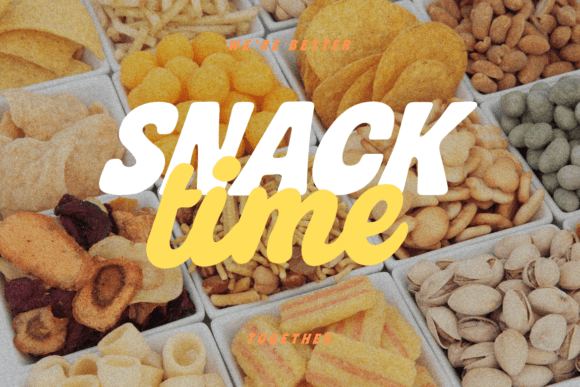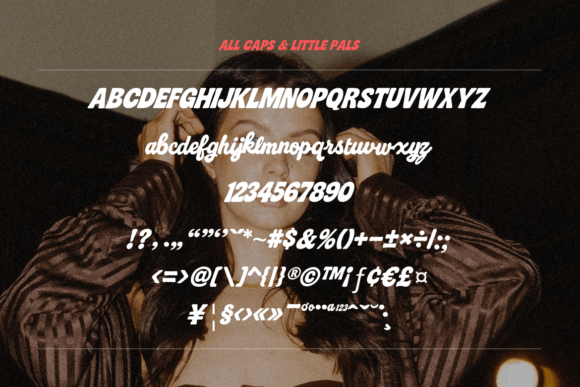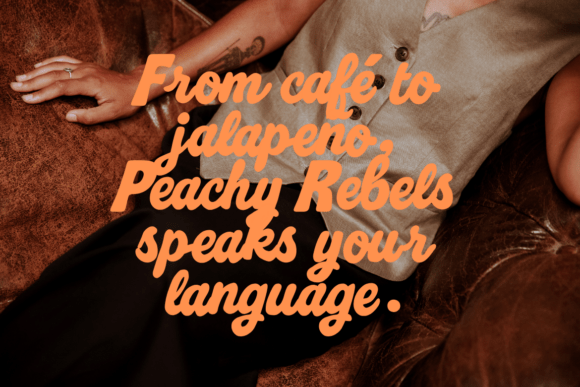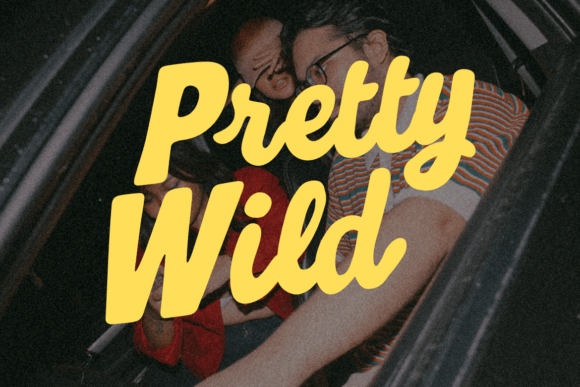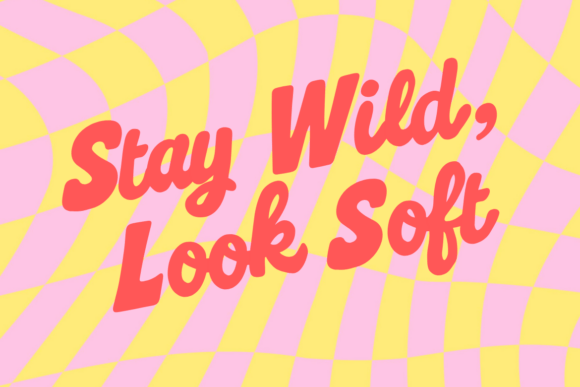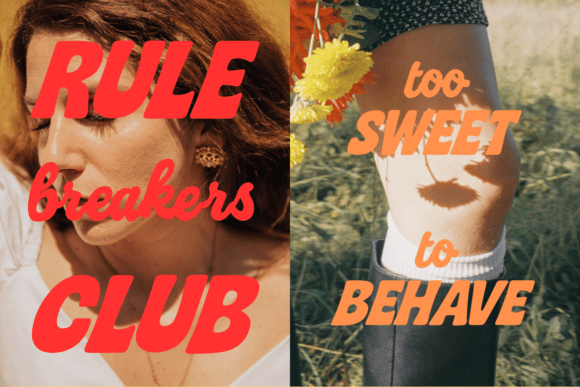
Introduction to Peachy Rebels Font
Immerse yourself in Peachy Rebels’s bubbly, bold universe, a unique font duo that combines a robust uppercase sans serif style with a delightful lowercase script.
With a nostalgic touch and an aura of ease, Peachy Rebels is the ideal choice for breadth and depth in your creative endeavors Amplify your brand or make your packaging pop with the heft and round curves of the uppercase font— it’s a font with a fashion-forward vintage twist designed to catch the eye, while making your headlines or logos stand out.
Key Features of Peachy Rebels Font
Why Choose Peachy Rebels Font?